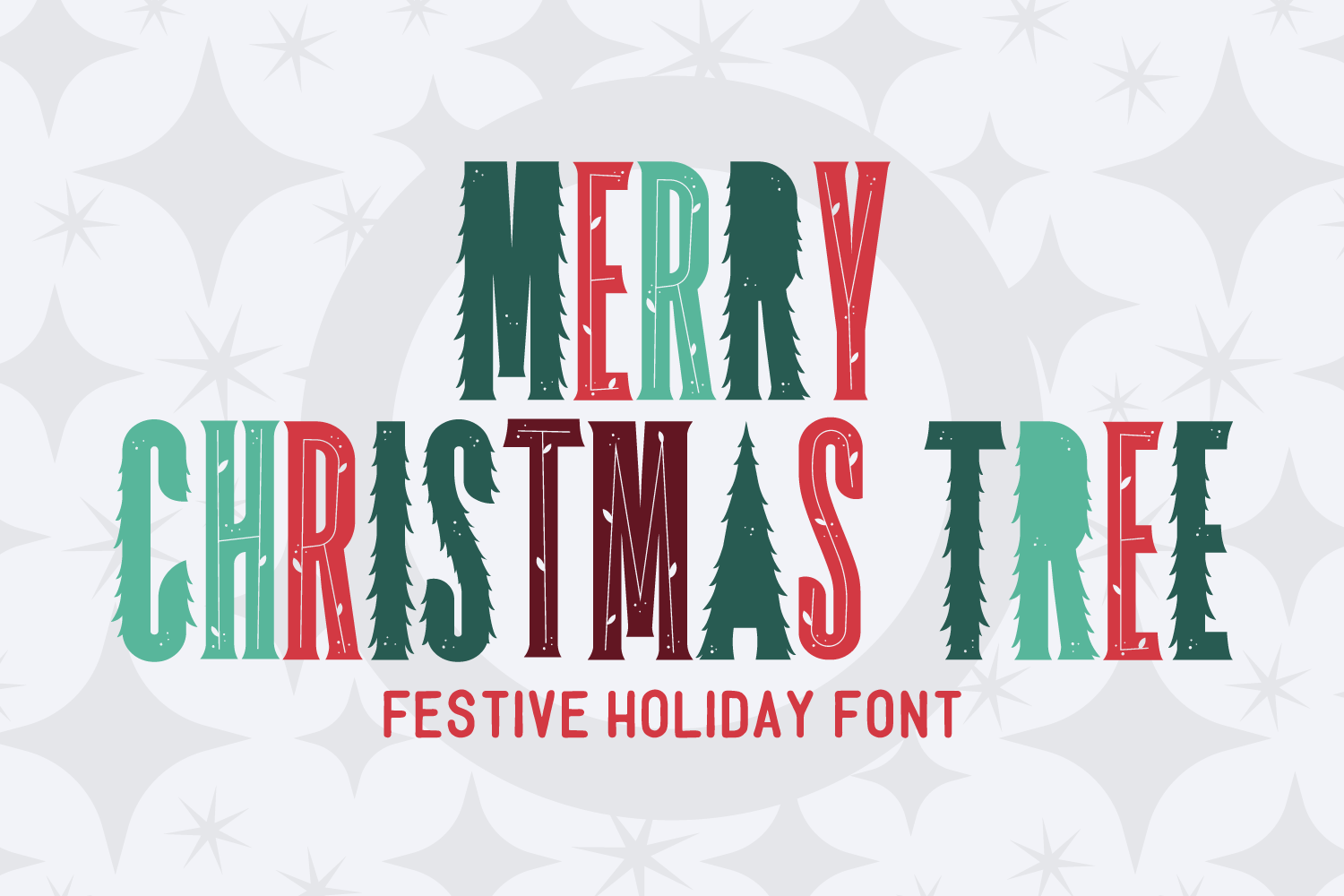
Merry Christmas Tree Holiday Font
With the Christmas season upon us, the one thing that can't be missing every year is a Christmas tree. Not even on your digital creations!
This holiday give your designs that festive look with the Merry Christmas Tree font. This bold typography inspired by the most important Christmas decorations offers alternatives when used in lowercase, so your design never looks repetitive.